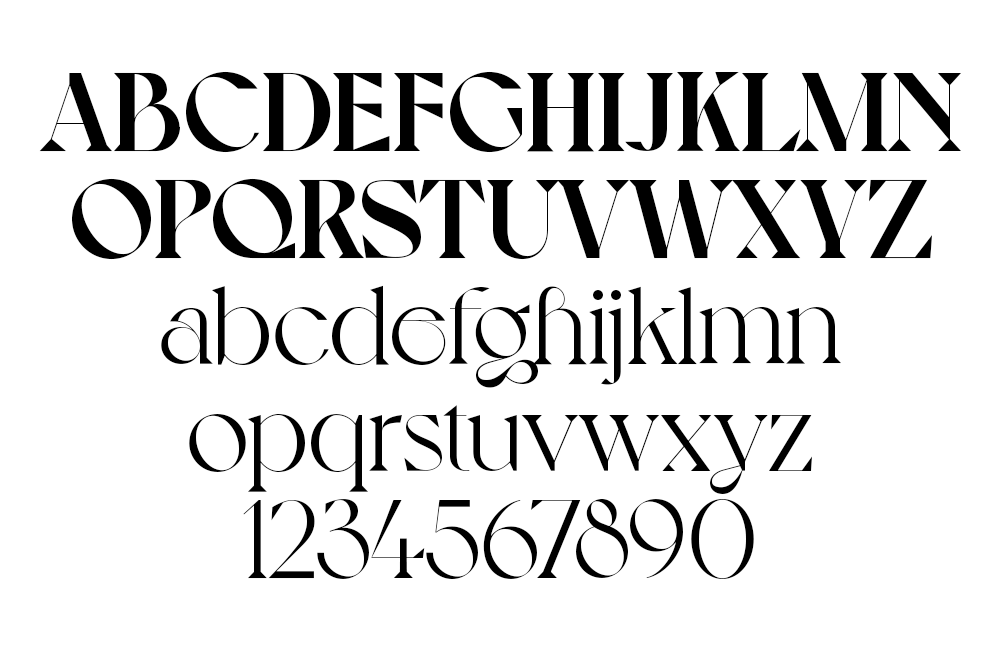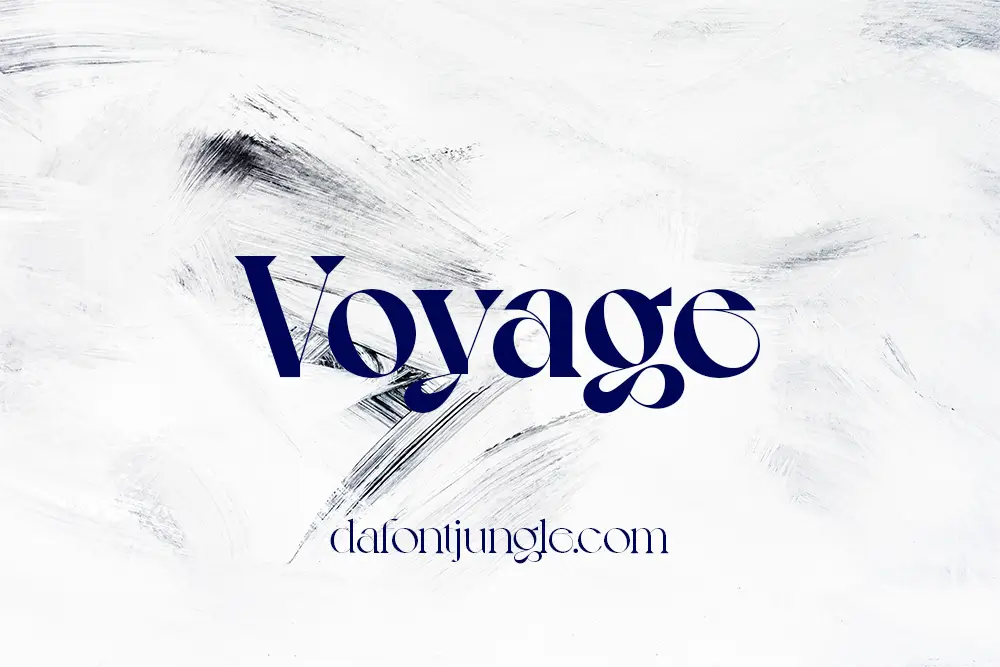
Voyage – Elegant Curvy Display Typeface
Voyage is a stylish display font with smooth curves and strong contrast. It is designed for bold headlines and expressive layouts. The letters flow naturally and feature soft, thin lines that add a graceful feel.
Inspired by vintage road trips, Voyage brings charm and freedom to any design. Use it for posters, logos, magazine covers, or luxury branding. Its classic style adds warmth and personality to your work.